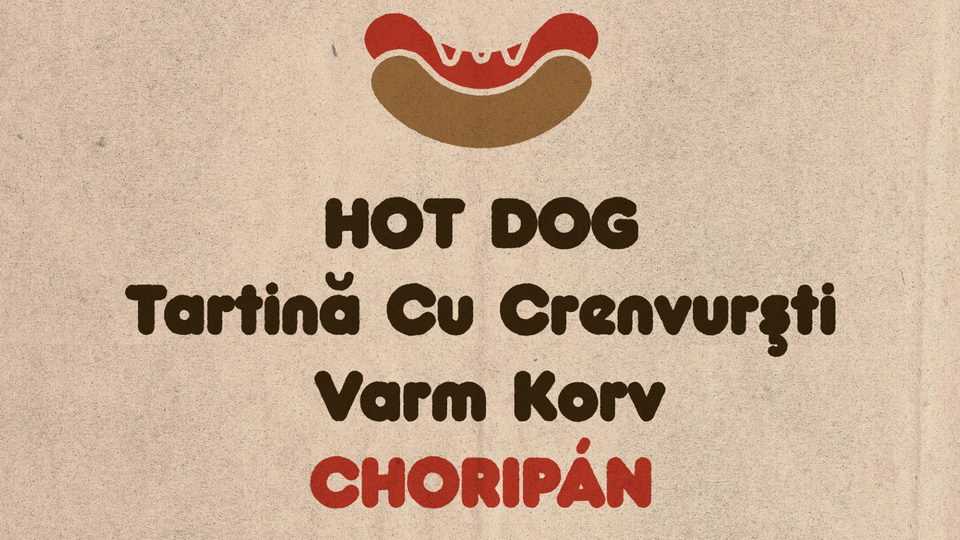
Download Choripán font, a sans serif typeface, a revival based on a classic design Frankfurter. by Bob Newman (Letraset studio, 1970). Choripán is meant for use in large sizes: titles, letterings and logos.
Designer: Rafael Nascimento